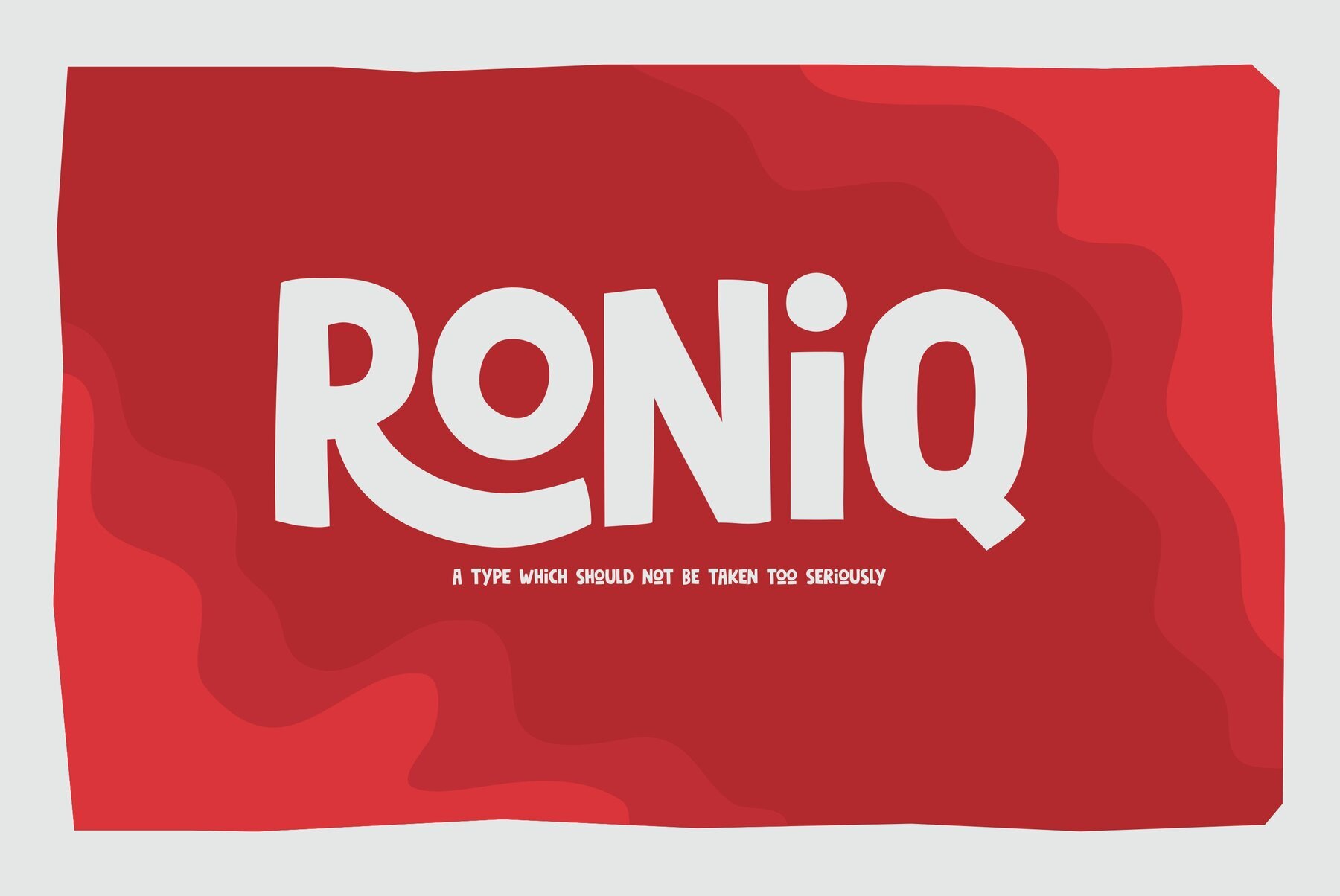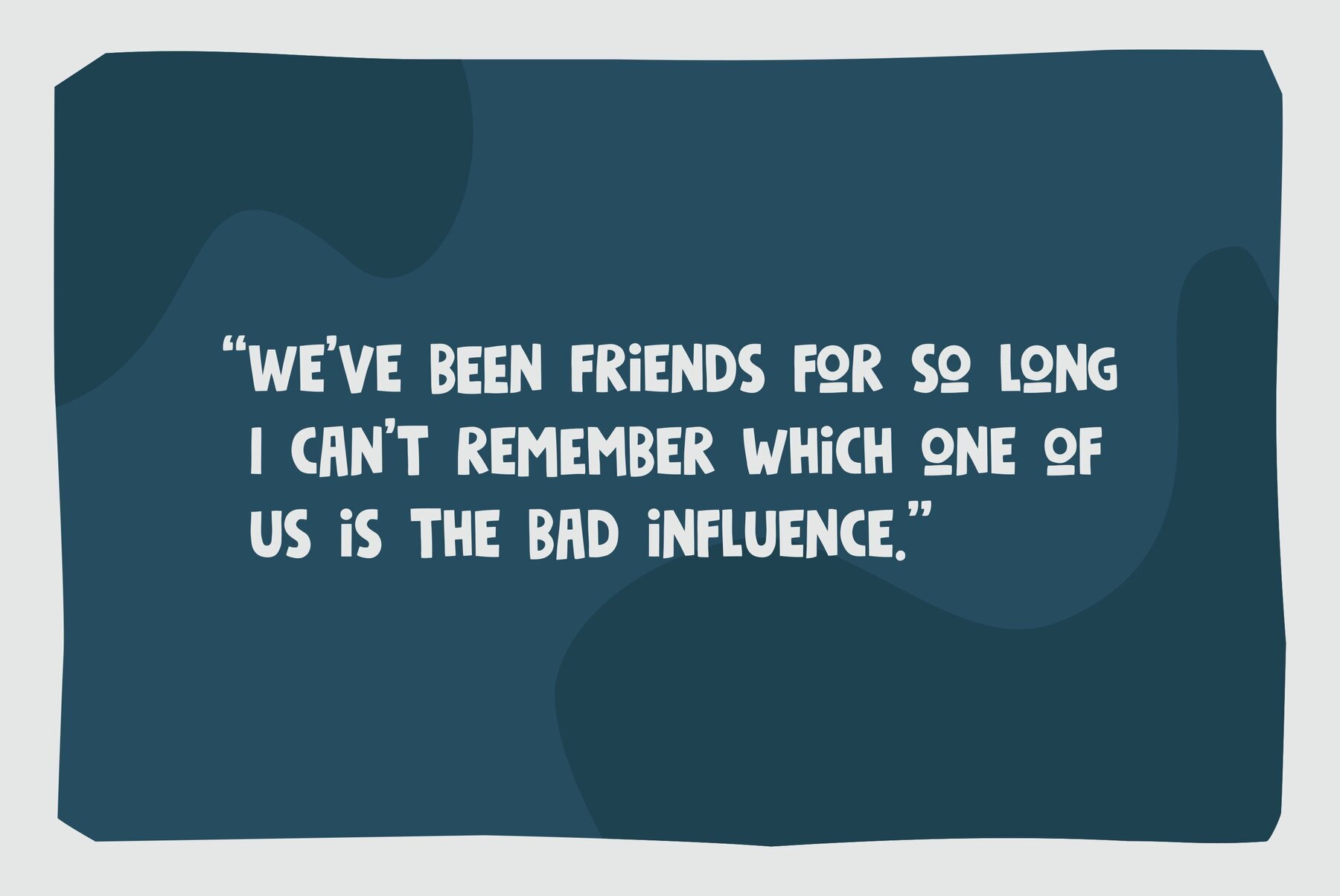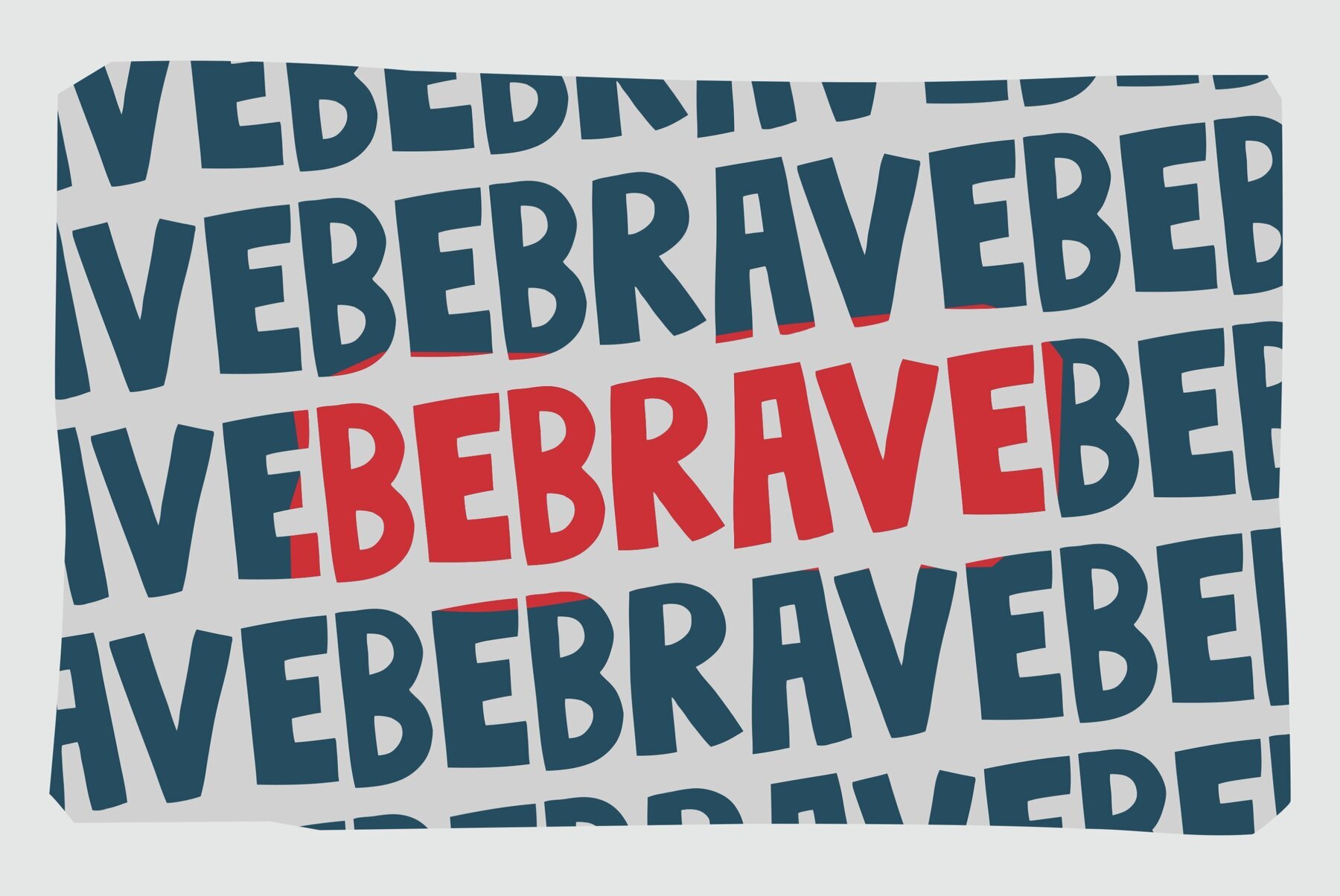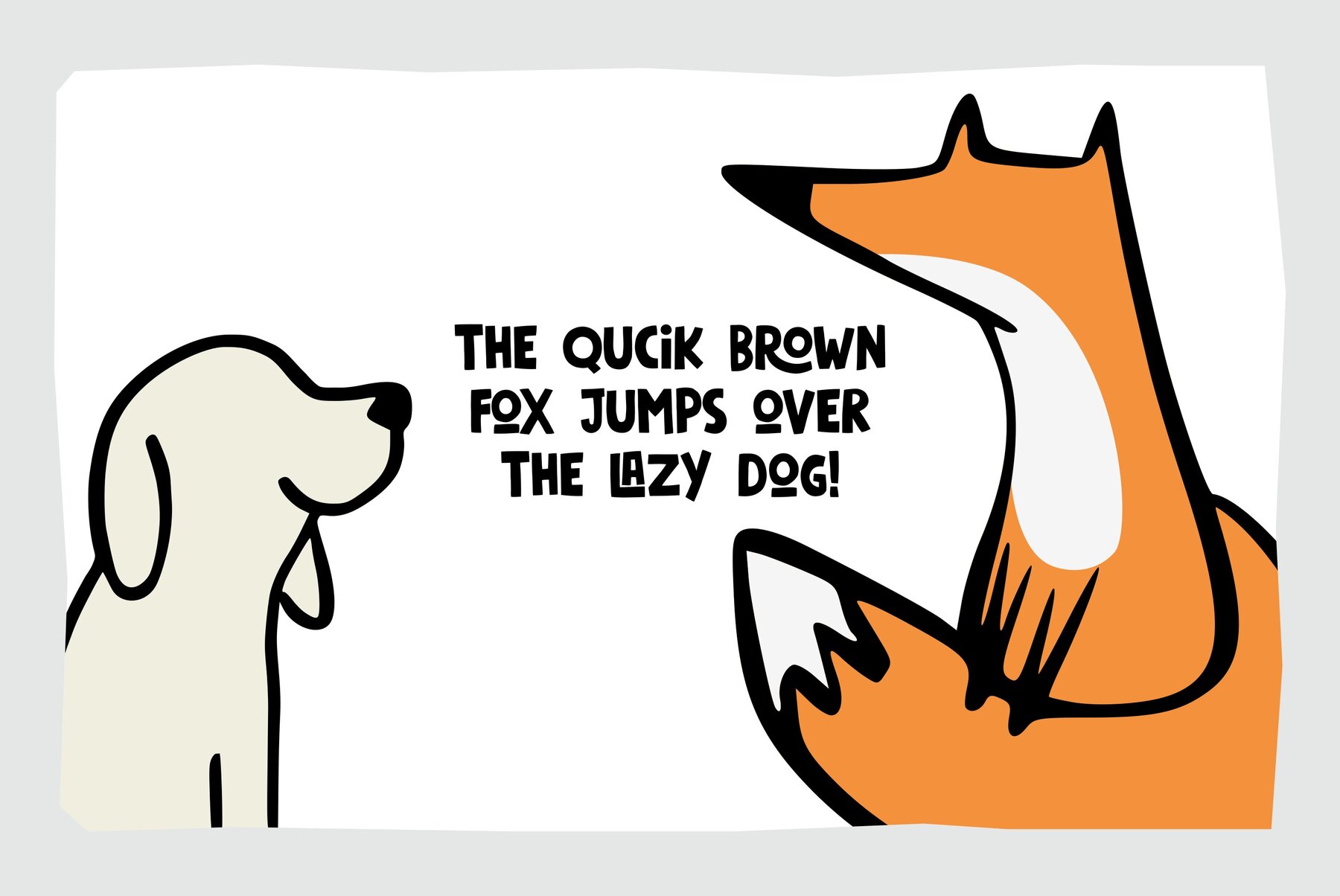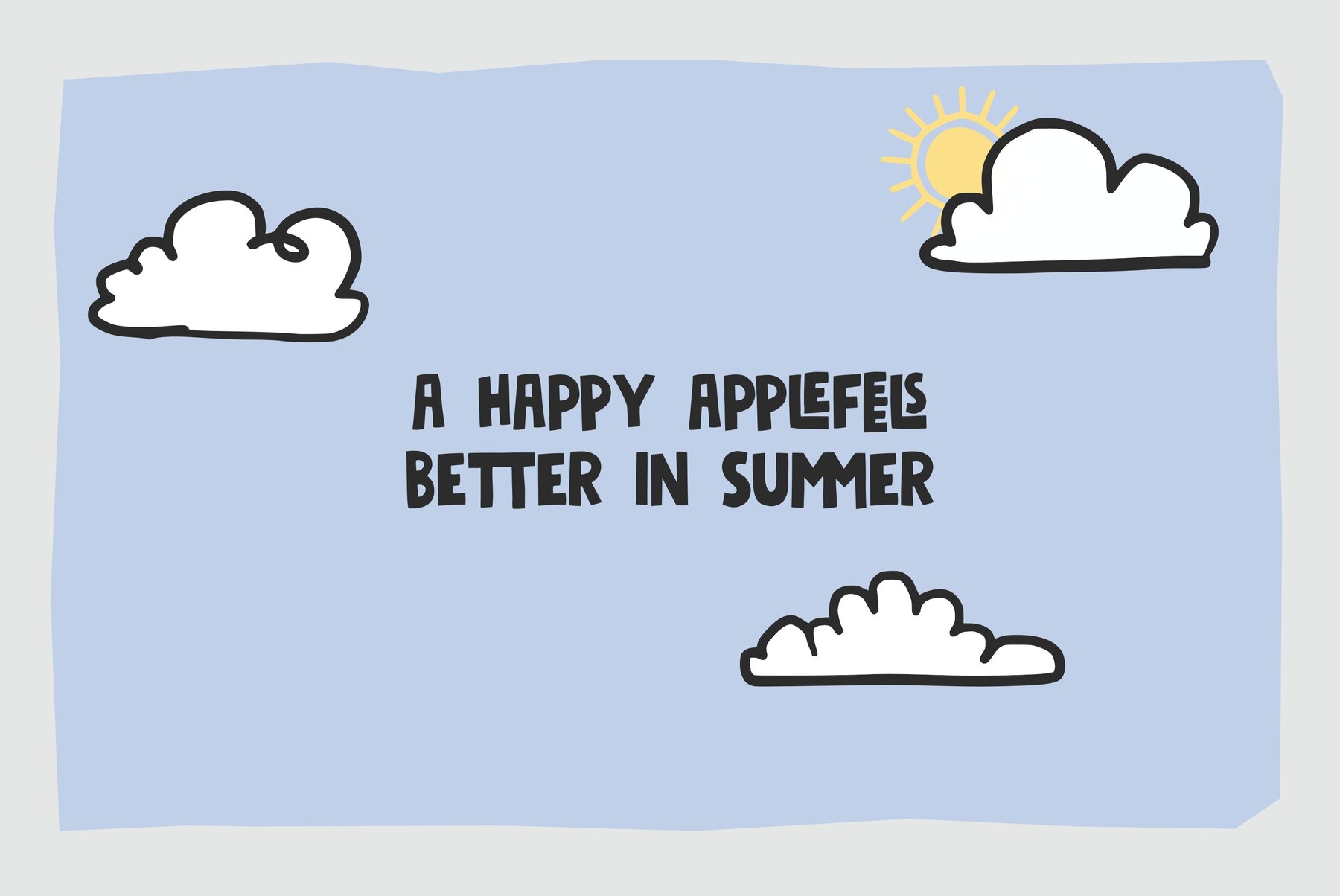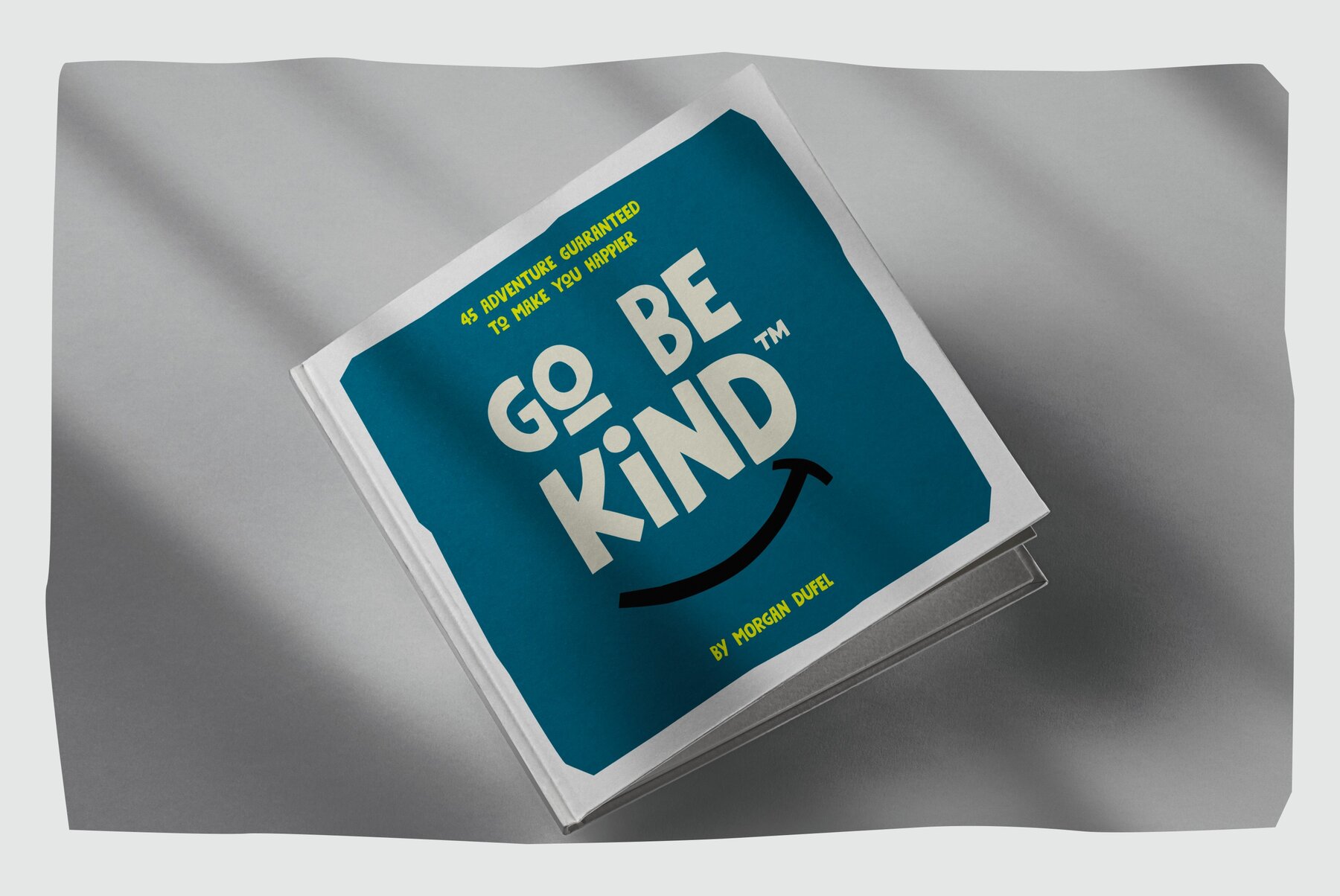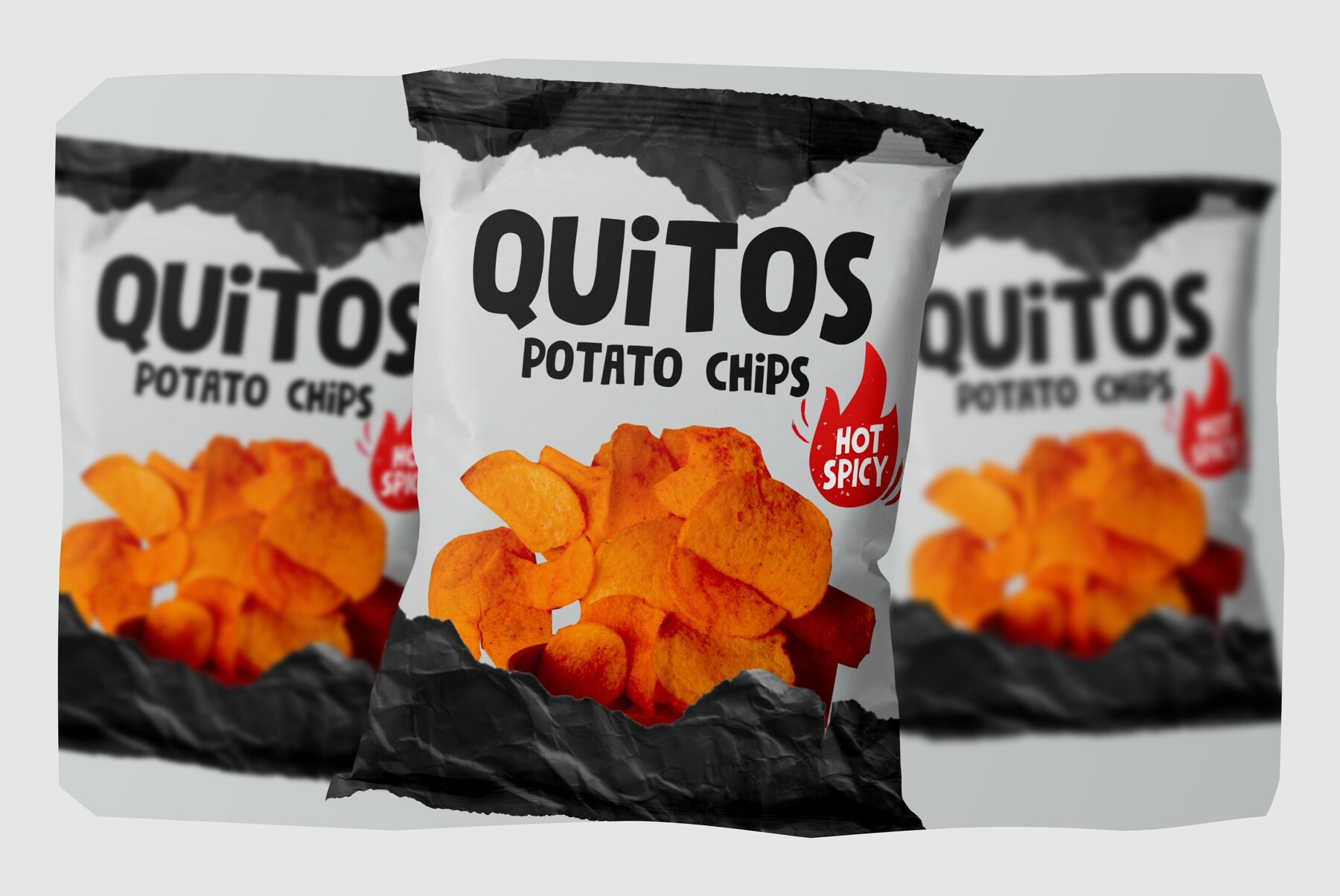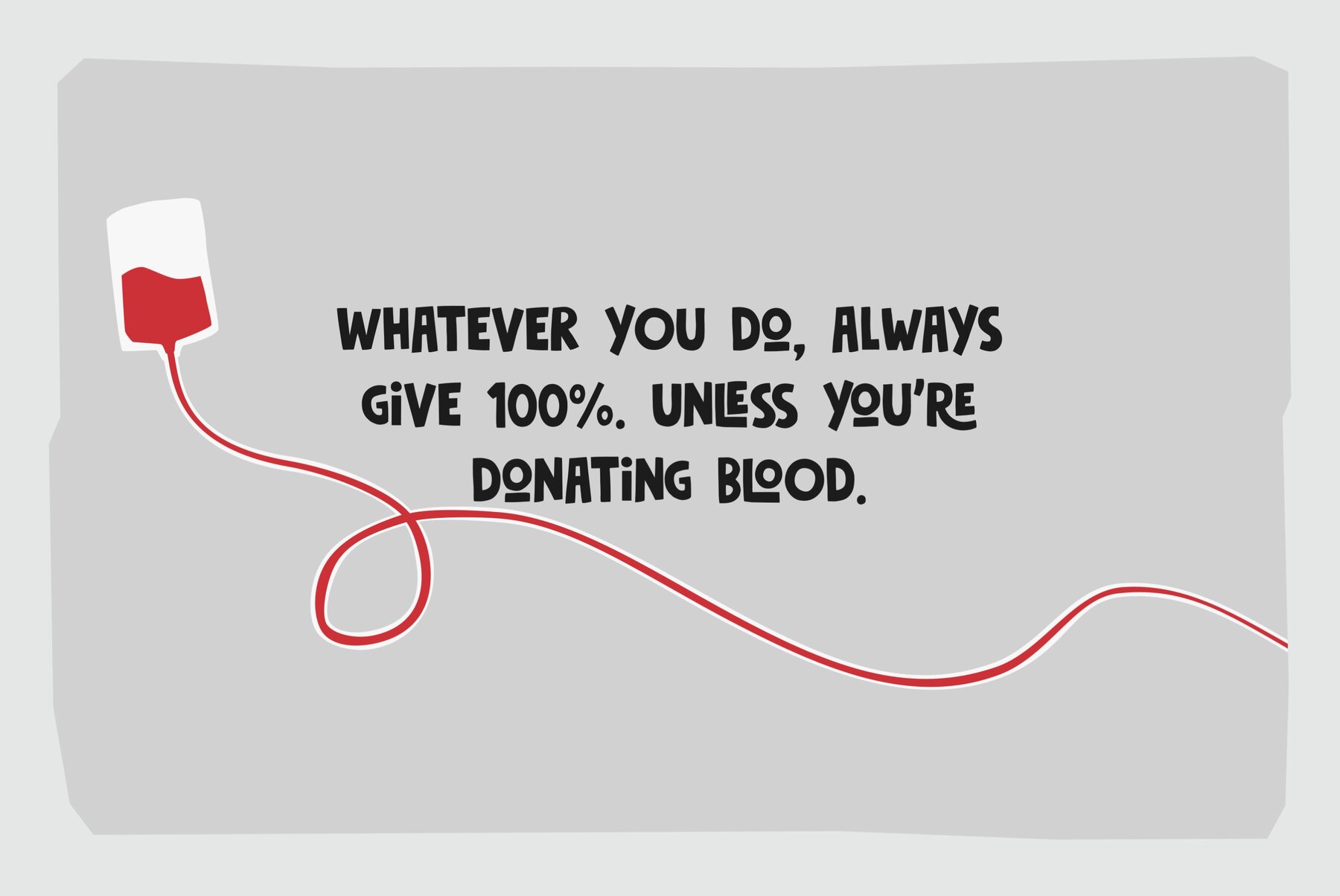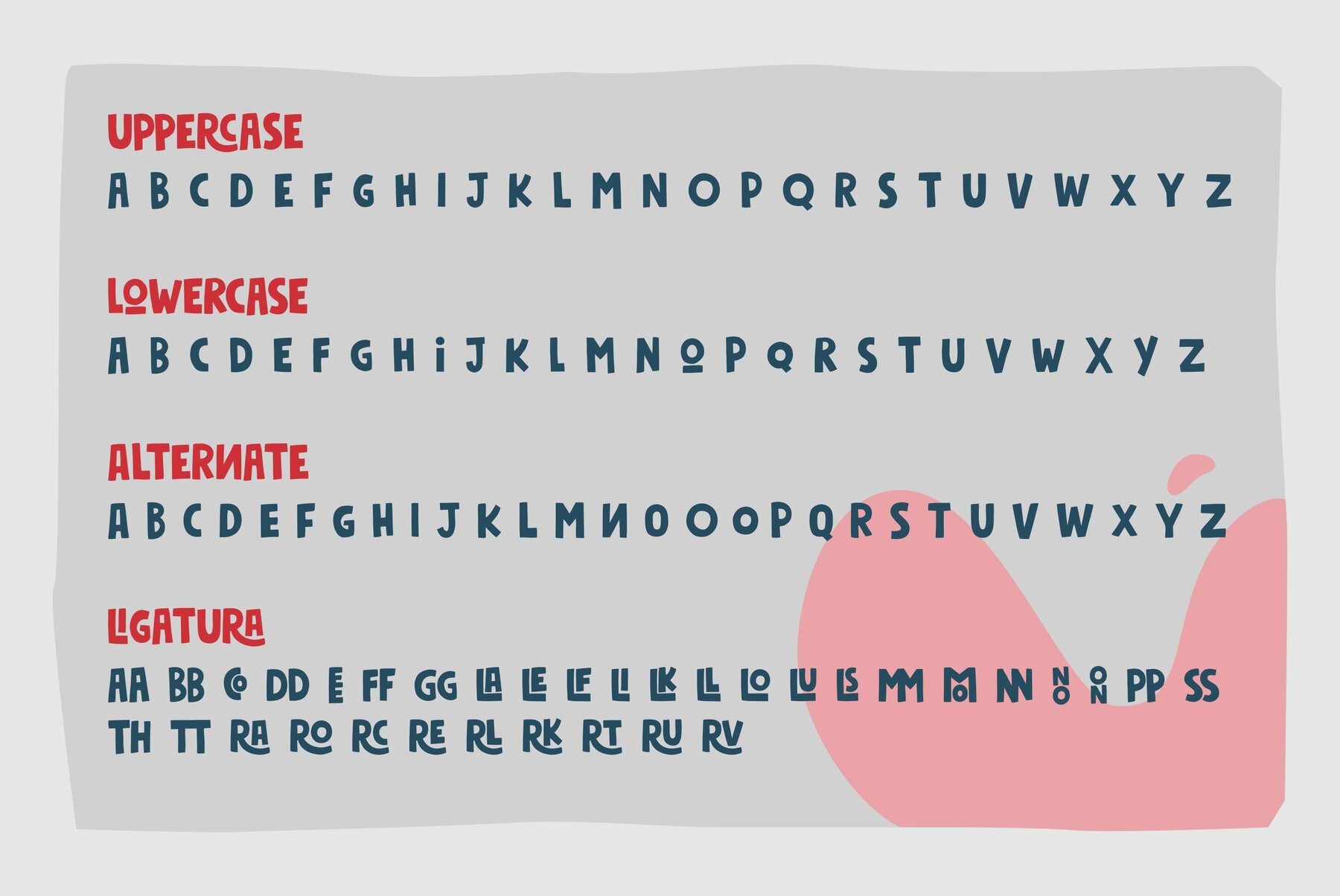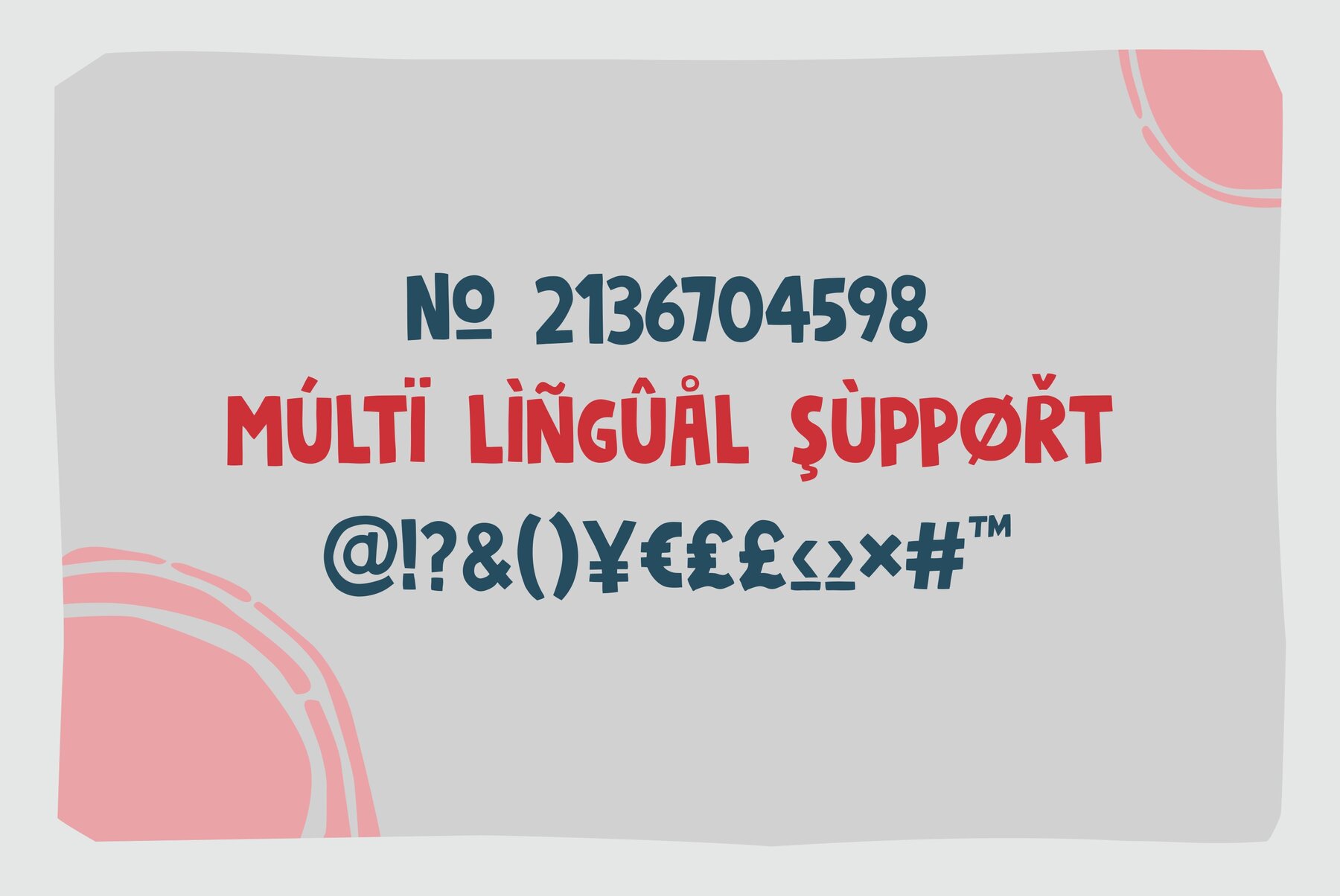
Roniq Font
Roniq
Introducing Roniq, a bold display typeface from Negara Studio that combines playfulness and impact. Its robust yet inviting letterforms bring vibrancy and distinction to your projects. Roniq is an ideal choice for branding, packaging, posters, and contemporary digital designs, offering both energy and a touch of whimsy.Roniq Typeface